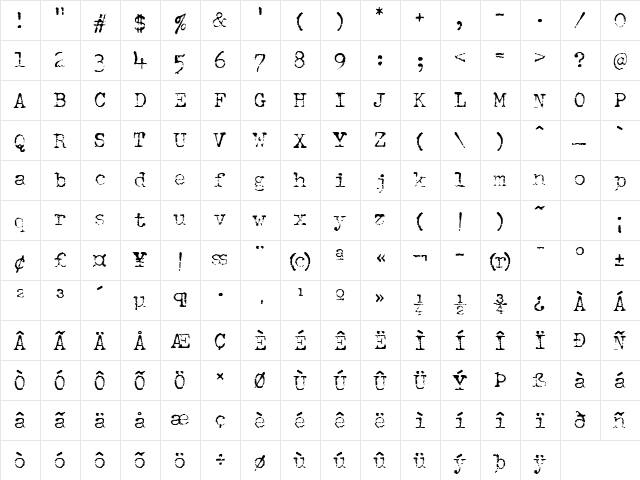
Schmutz ICG Corroded Regular
Design Context for Schmutz ICG Corroded Typeface
Schmutz ICG Corroded is a composed and adaptable typeface that performs quietly and consistently across a wide range of design contexts.